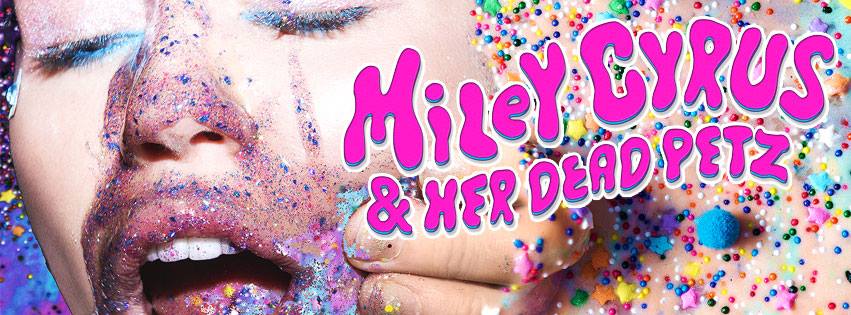
superbrams 246 Posted February 8, 2017 Share Posted February 8, 2017 does anyone the name of the font, or where i can download, the font they used for the titles in the John Wayn video? I wanne use it for some fan art Link to post Share on other sites More sharing options...
bujibu 463 Posted February 8, 2017 Share Posted February 8, 2017 It kind of looks the old monster movie font they used in 1950s-60s movies. Gagapedia might be able to help you out. I literally searched fonts on it a few weeks ago and it broke down all the fonts used in artwork, MV's, etc. Link to post Share on other sites More sharing options...
Bear 7,515 Posted February 8, 2017 Share Posted February 8, 2017 Hopefully someone can find it, or maybe it's a custom one. Anyway, this font Green Fuz is very similar imo if you colour it right. Link to post Share on other sites More sharing options...
Monsterish 5,520 Posted February 8, 2017 Share Posted February 8, 2017 Idk the name of the font but I remind this Link to post Share on other sites More sharing options...
Dayman 6,252 Posted February 8, 2017 Share Posted February 8, 2017 It's definitely custom. Compare the "N"s in that picture. Link to post Share on other sites More sharing options...
Bear 7,515 Posted February 8, 2017 Share Posted February 8, 2017 Just now, bramstelwagen said: omg yesss this one looks very the same thank you soo much <3 No problem The more I look it, the more I think they're actually the same font I think it's just been warped slightly in the actual video. Link to post Share on other sites More sharing options...